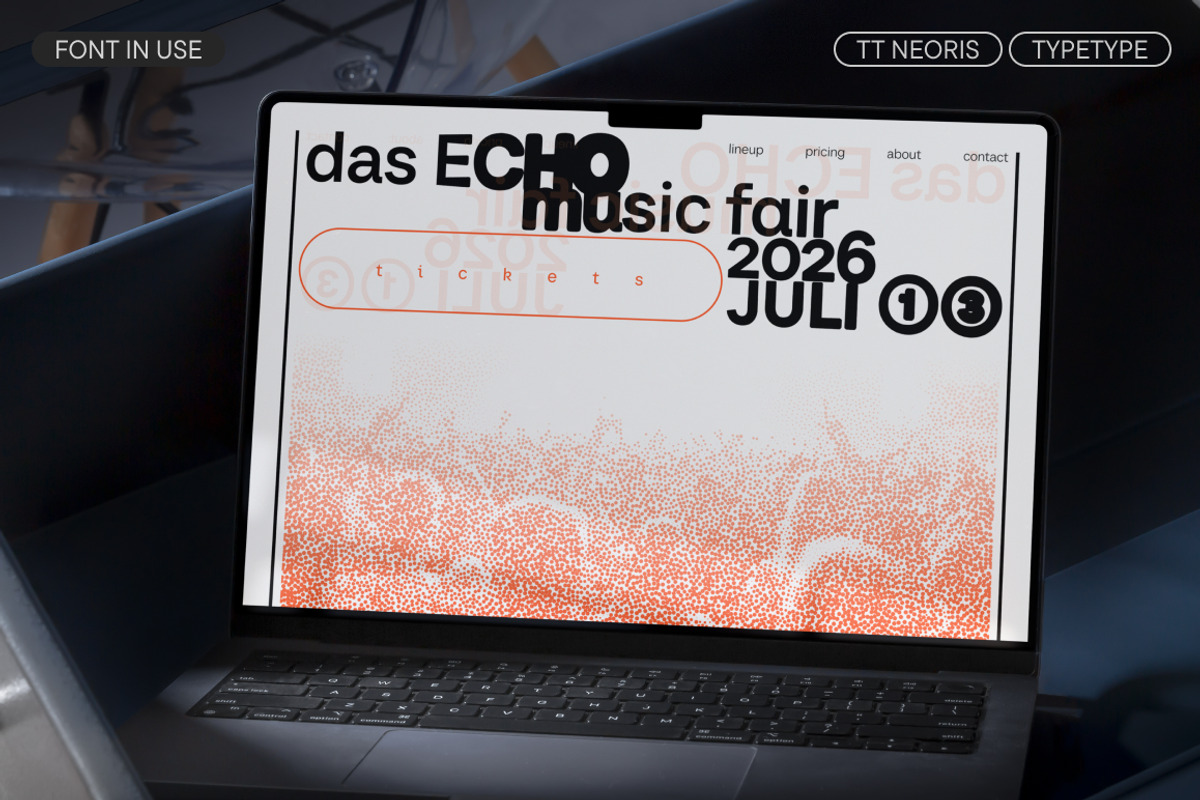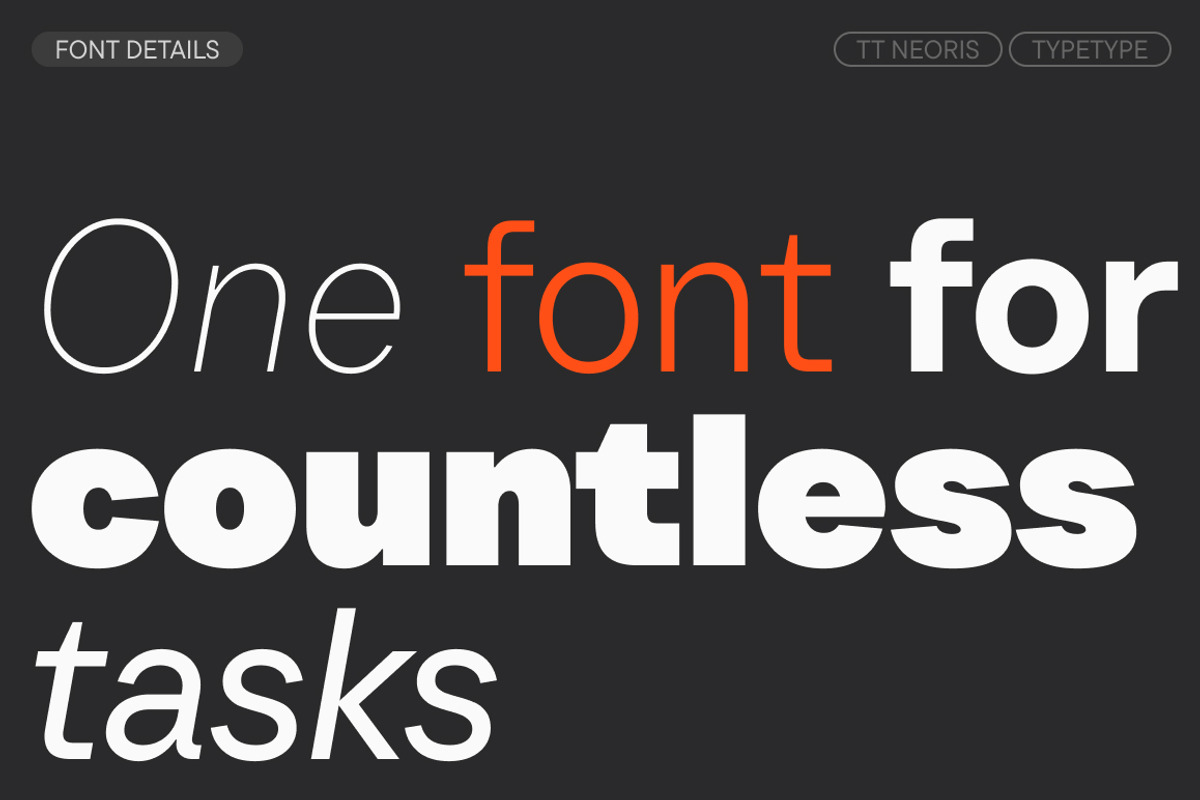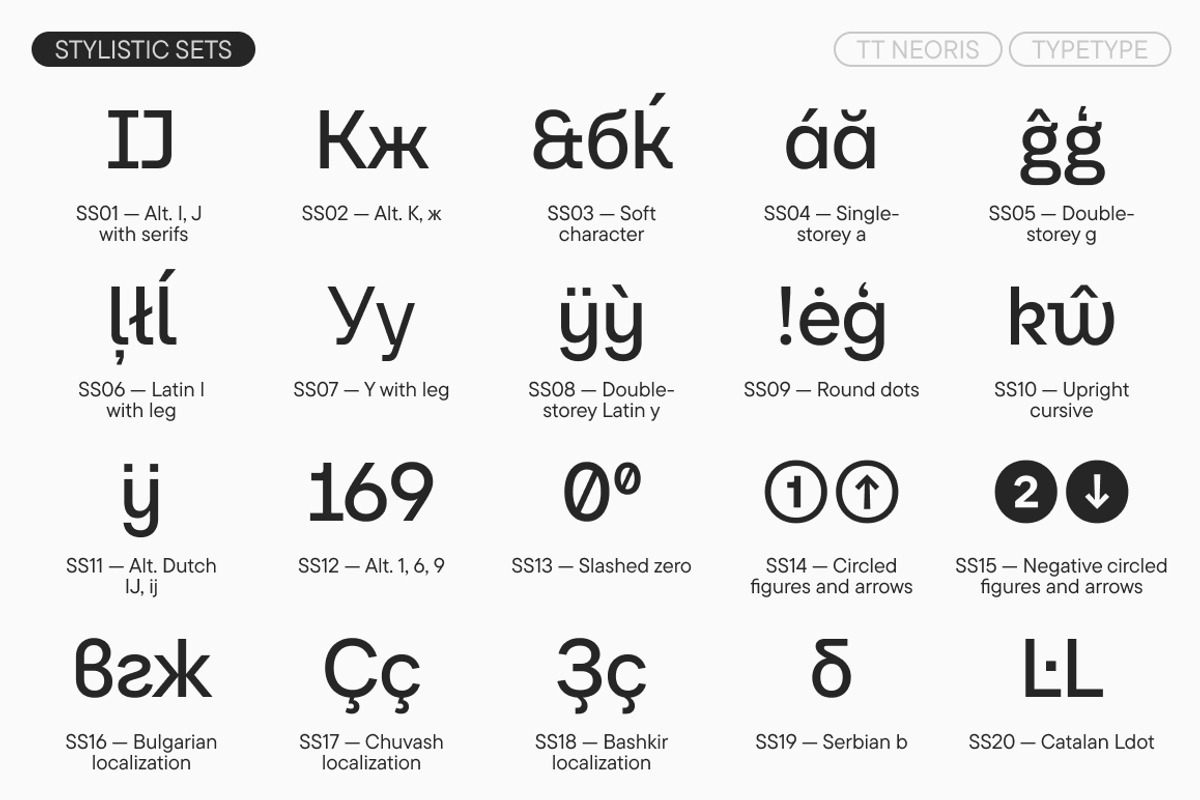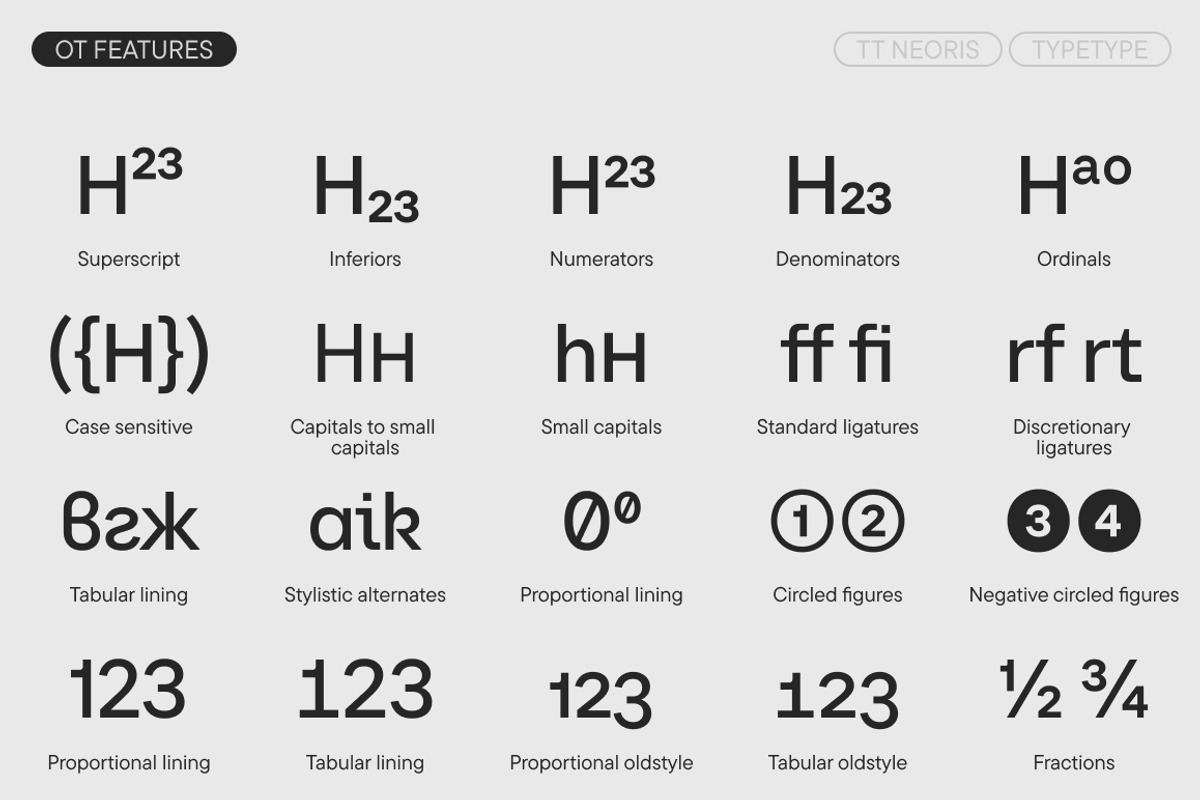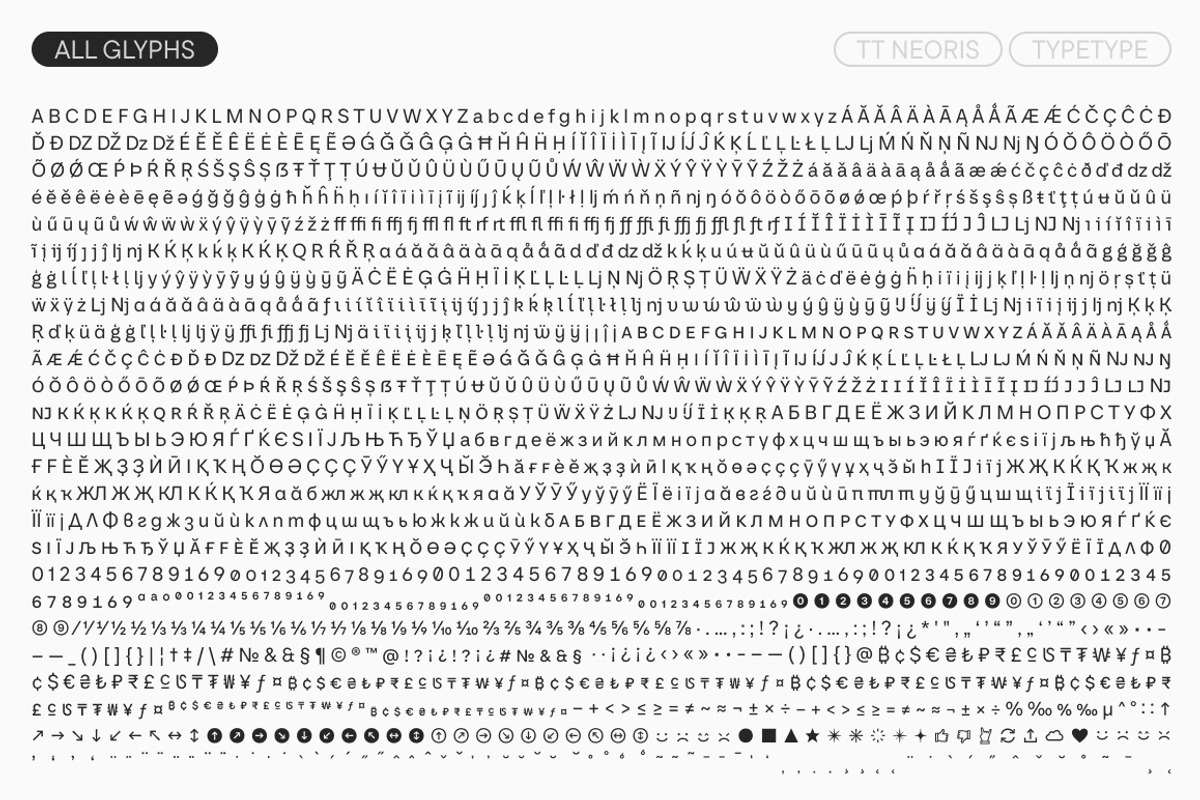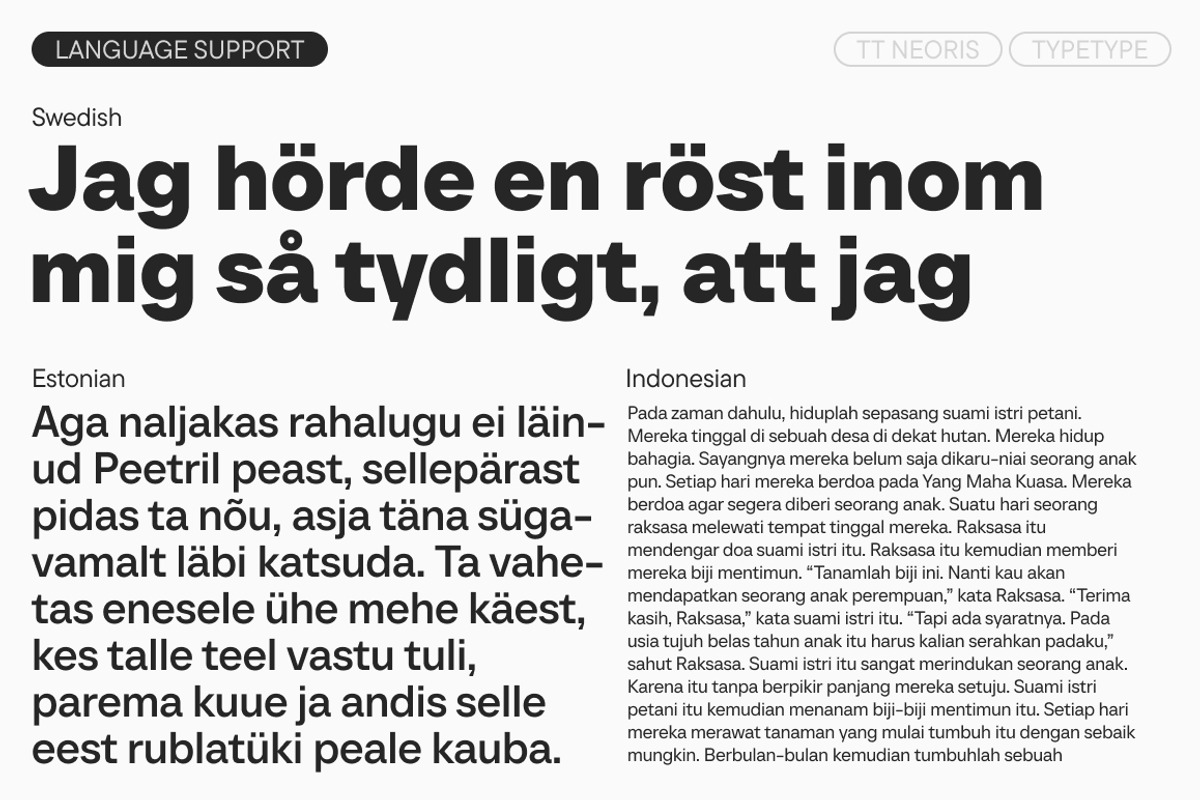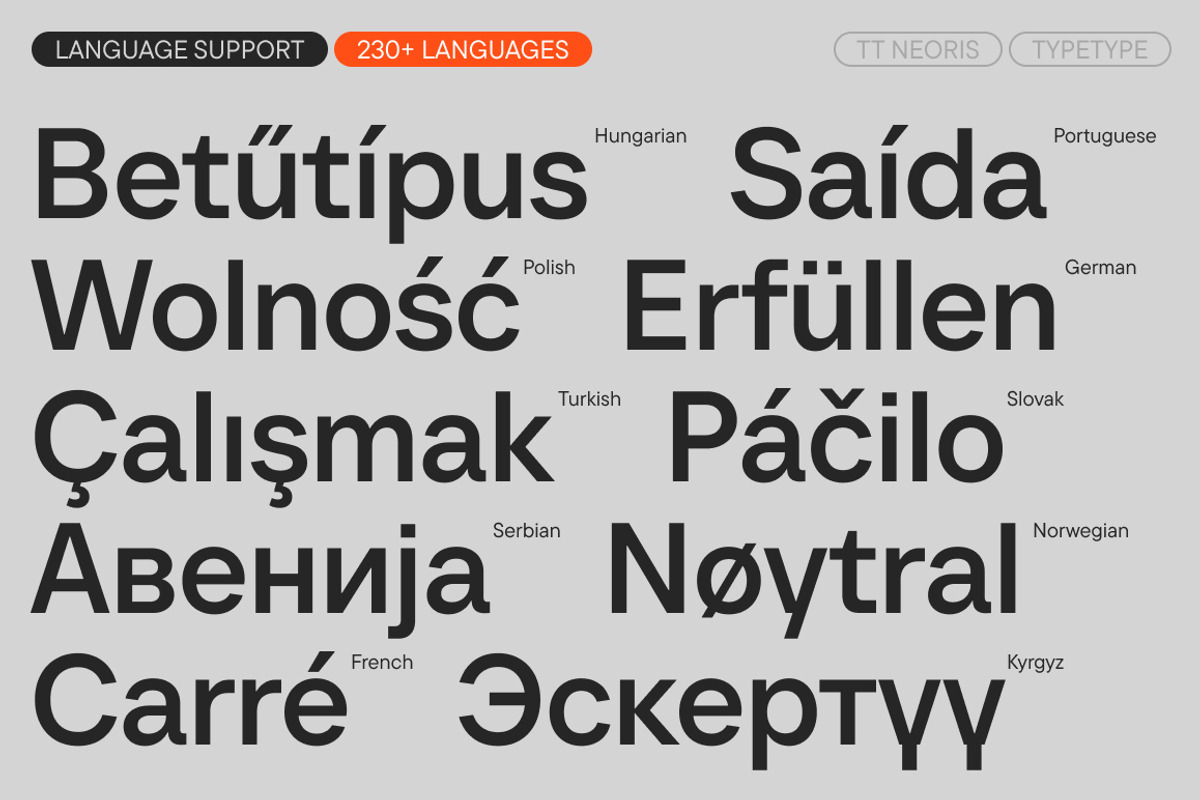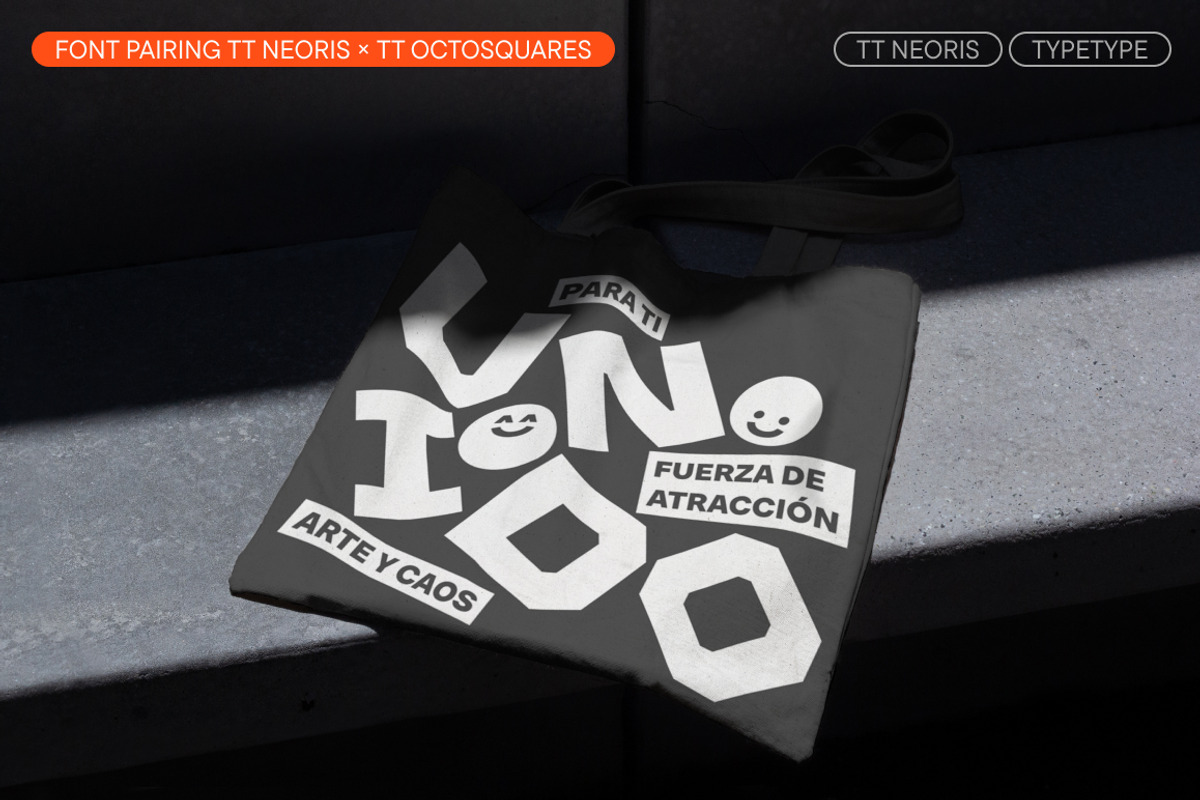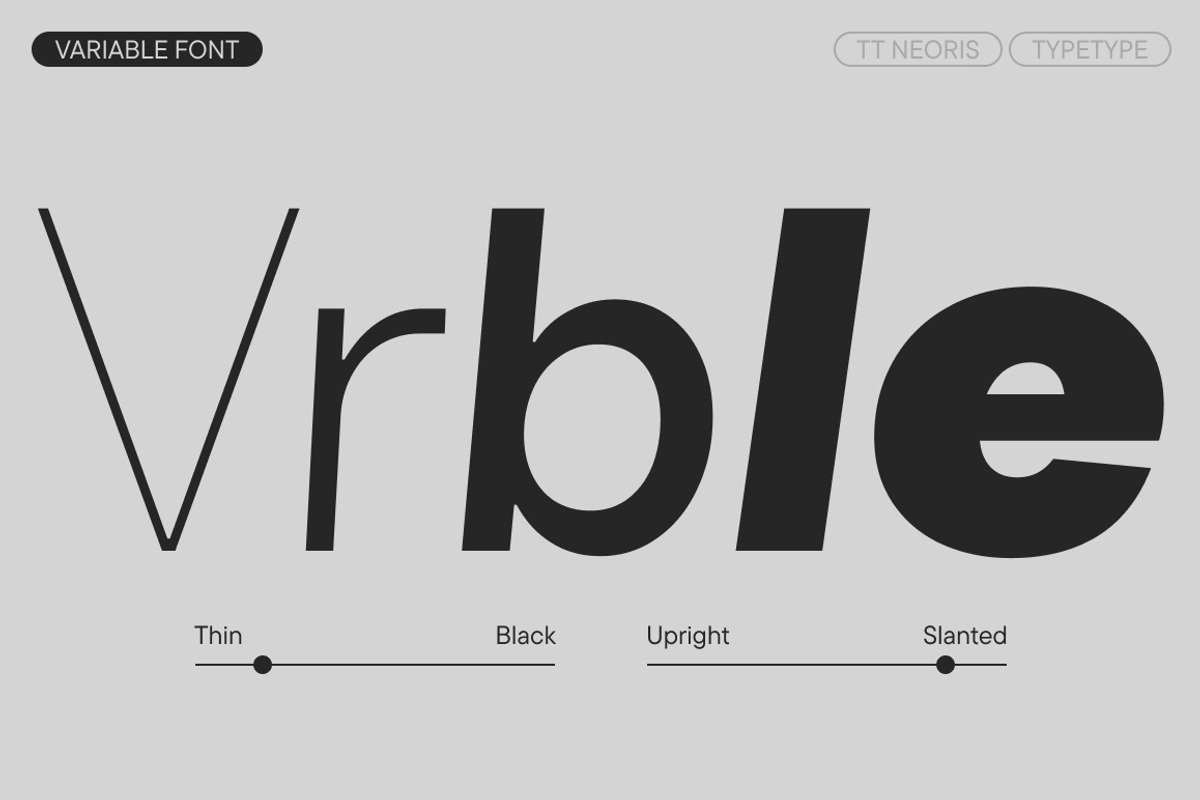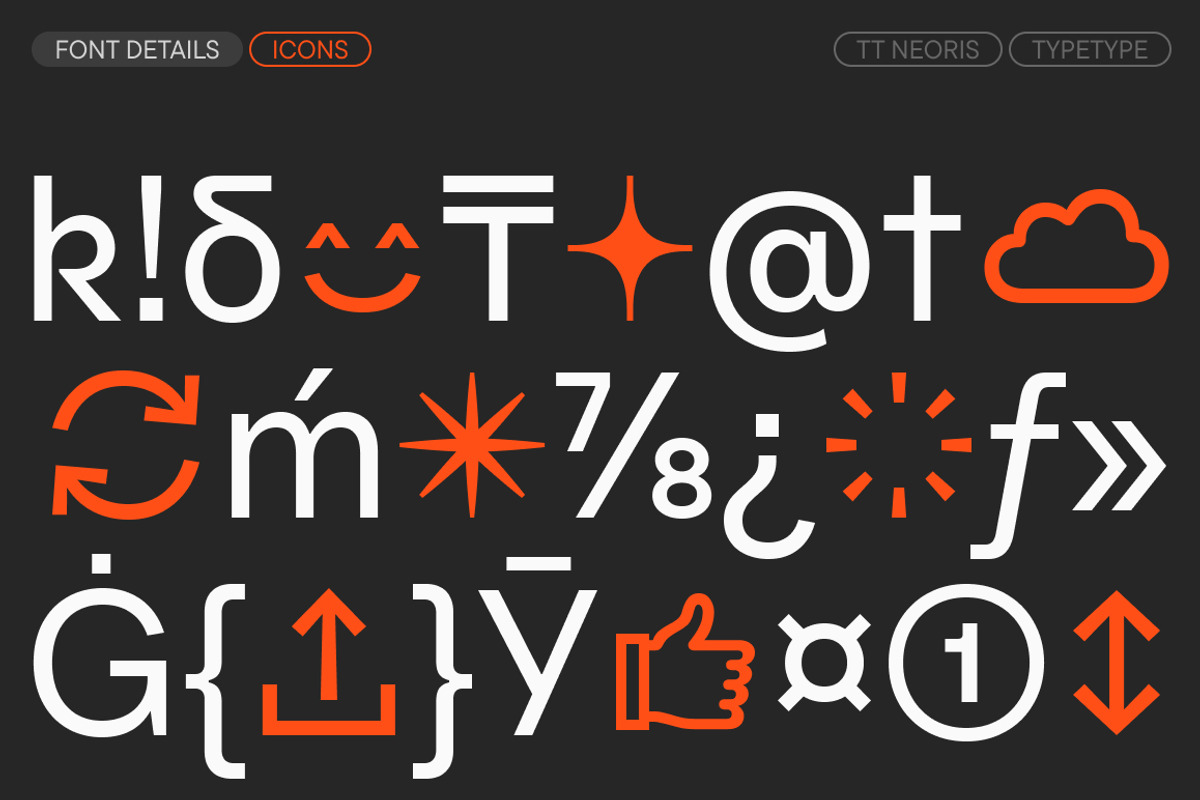
TT Neoris
The future of Neo-Grotesques is now! Introducing TT Neoris—a new ambitious font from TypeType.
TT Neoris is an elegant Neo-Grotesque with unlimited potential and a font that encompasses all modern requirements and user desires. An ample character set, support for more than 230 languages, and a large set of OpenType features—this font has everything you need for your design (and even more)!
TT Neoris has been in development for two and a half years. To begin with, we carried out extensive research, analyzing the market and asking users to share their wishes and preferences. Then, using the information we collected, we defined the task for ourselves—to create a simple and convenient Neo-Grotesque that would have neutral features and be distinctive and fresh at the same time.
So, this is what TT Neoris turned out to be—it is technological, functional, all-purpose, and ultra-modern. And also highly versatile and adaptable. Due to its huge number of features, this font can easily replace multiple others! You can dramatically transform the mood of TT Neoris so it becomes a powerful tool for your projects.
We focused closely on details to bring the font closer to perfection. Cyrillic italics were made visually different from the Latin ones, following the traditions of Cyrillic calligraphy. We made sure that the boldest font style’s feeling was as solemn as that of the regular one. And, not to boast, we have offered a glimpse into the future of Neo-Grotesques!
TT Neoris is an ideal sans with:
- 21 font styles: 10 upright, 10 italics, and 1 variable font;
- 1832 characters in each font style, including the extended Latin and Cyrillic character sets and special symbols;
- 41 OpenType features, counting in localization features for various languages, stylistic alternates, capitals, icons, circled figures, and arrows;
- 14 stylistic sets with Soft character and Upright cursive in Latin and Cyrillic character sets;
- 230+ languages support, including all languages based on Cyrillic script with over a million speakers;
- Special condensed italics designed to create a ‘highlighting’ effect when used in specific text segments.
Begin using the Neo-Grotesque of the future today!
TT Neoris supports 230+ languages: English, Albanian, Basque , Catalan, Croatian, Czech, Danish, Dutch, Estonian, Finnish, French, German, Hungarian, Icelandic, Irish, Italian, Latvian, Lithuanian, Luxembourgish, Maltese, Moldavian (lat), Montenegrin (lat), Norwegian, Polish, Portuguese, Romanian , Serbian (lat), Slovak, Slovenian, Spanish, Swedish, Swiss German , Valencian, Azerbaijani , Kazakh (lat), Turkish, Uzbek (lat), Acehnese, Banjar, Betawi, Bislama, Boholano, Cebuano, Chamorro, Fijian, Filipino, Hiri Motu, Ilocano, Indonesian, Javanese, Khasi, Malay, Marshallese, Minangkabau, Nauruan, Nias, Palauan, Rohingya, Salar, Samoan, Sasak, Sundanese, Tagalog, Tahitian, Tetum, Tok Pisin, Tongan, Uyghur, Afar, Asu, Aymara, Bemba, Bena, Chichewa, Chiga, Embu, Gikuyu, Gusii, Jola-Fonyi, Kabuverdianu, Kalenjin, Kamba, Kikuyu, Kinyarwanda, Kirundi, Kongo, Luba-Kasai, Luganda, Luo, Luyia, Machame, Makhuwa-Meetto, Makonde, Malagasy, Mauritian Creole, Meru, Morisyen, Ndebele, Nyankole, Oromo, Rombo, Rundi, Rwa, Samburu, Sango, Sangu, Sena, Seychellois Creole, Shambala, Shona, Soga, Somali, Sotho, Swahili, Swazi, Taita, Teso, Tsonga, Tswana , Vunjo, Wolof, Xhosa, Zulu, Ganda, Maori, Alsatian, Aragonese, Arumanian, Asturian, Belarusian (lat), Bosnian (lat), Breton , Bulgarian (lat), Colognian, Cornish, Corsican , Esperanto, Faroese, Frisian, Friulian, Gaelic, Gagauz (lat), Galician, Interlingua, Judaeo-Spanish, Karaim (lat), Kashubian, Ladin, Leonese, Manx, Occitan, Rheto-Romance, Romansh, Scots, Silesian, Sorbian, Vastese, Volapük, Võro, Walloon, Walser, Welsh, Karakalpak (lat), Kurdish (lat), Talysh (lat), Tsakhur (Azerbaijan), Turkmen (lat), Zaza, Aleut (lat), Cree, Haitian Creole, Hawai- ian, Innu-aimun, Lakota, Karachay-Balkar (lat), Karelian, Livvi-Karelian, Ludic, Tatar, Vepsian, Guarani, Nahuatl, Quechua, Russian, Belarusian (cyr), Bosnian (cyr), Bulgarian (cyr), Macedonian, Serbian (cyr), Ukrainian, Kazakh (cyr), Kirghiz, Tadzhik, Turkmen (cyr), Uzbek (cyr), Lezgian, Abazin, Agul, Archi, Avar, Dargwa, Ingush, Kabardian, Kabardino-Cherkess, Karachay-Balkar (cyr), Khvarshi, Kumyk, Lak, Nogai, Rutul, Tabasaran, Tsakhur, Buryat, Komi-Permyak, Komi-Zyrian, Siberian Tatar, Tofalar, Touva, Bashkir, Chechen (cyr), Chuvash, Erzya, Kryashen Tatar, Mordvin-moksha, Tatar Volgaic , Udmurt, Uighur, Rusyn, Montenegrin (cyr), Romani (cyr), Dungan, Karakalpak (cyr), Shughni, Mongolian, Adyghe, Kalmyk.
Full list of OpenType features: aalt, ccmp, case, locl, subs, sinf, sups, numr, dnom, frac, ordn, tnum, omun, lnum, pnum, ss01, ss02, ss03, ss04, ss05, ss06, ss07, ss08, ss09, ss10, ss11, ss12, ss13, ss14, ss15, ss16, ss17, ss18, ss19, ss20, c2sc, smcp, liga, dlig, zero, calt.